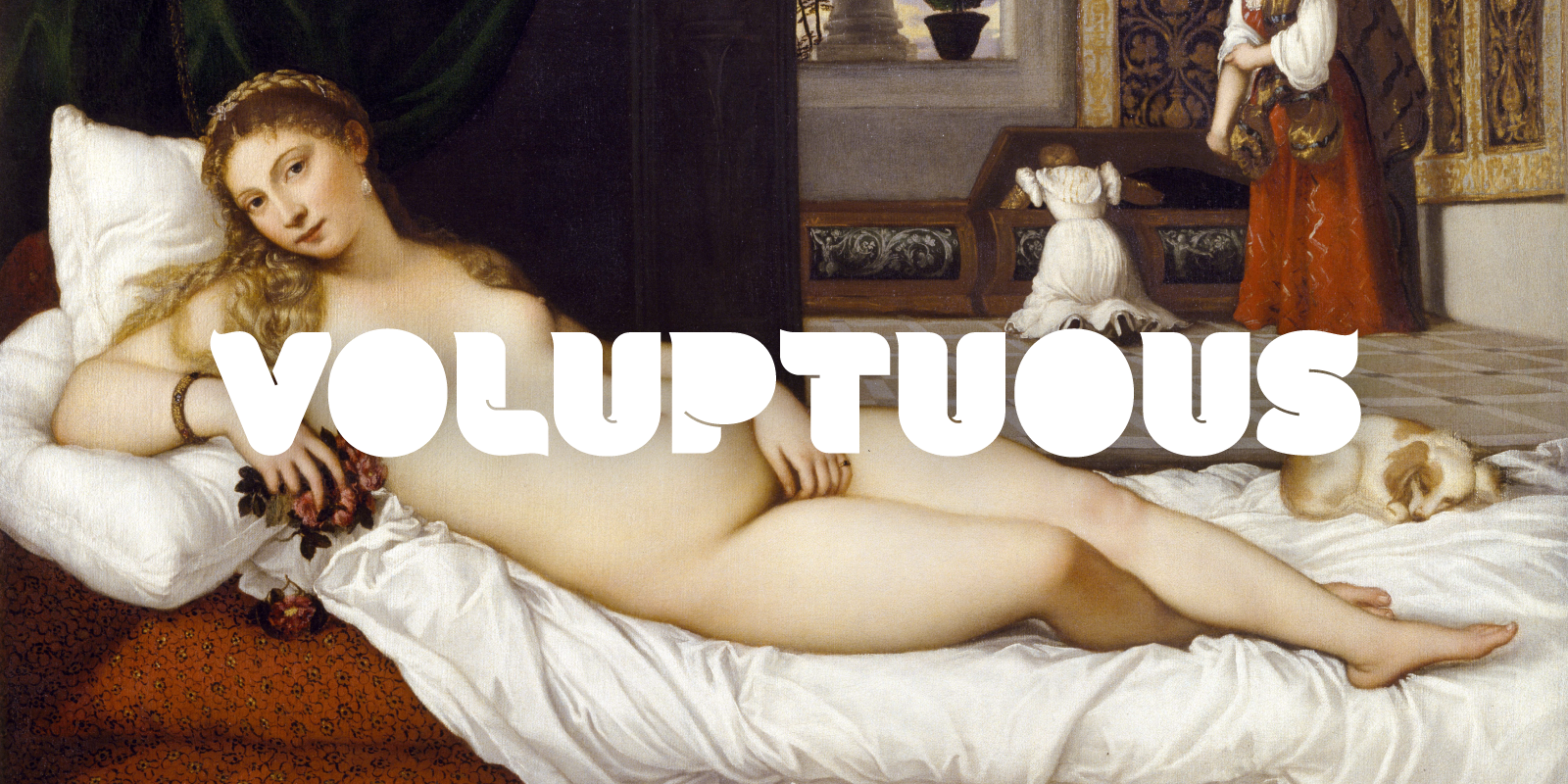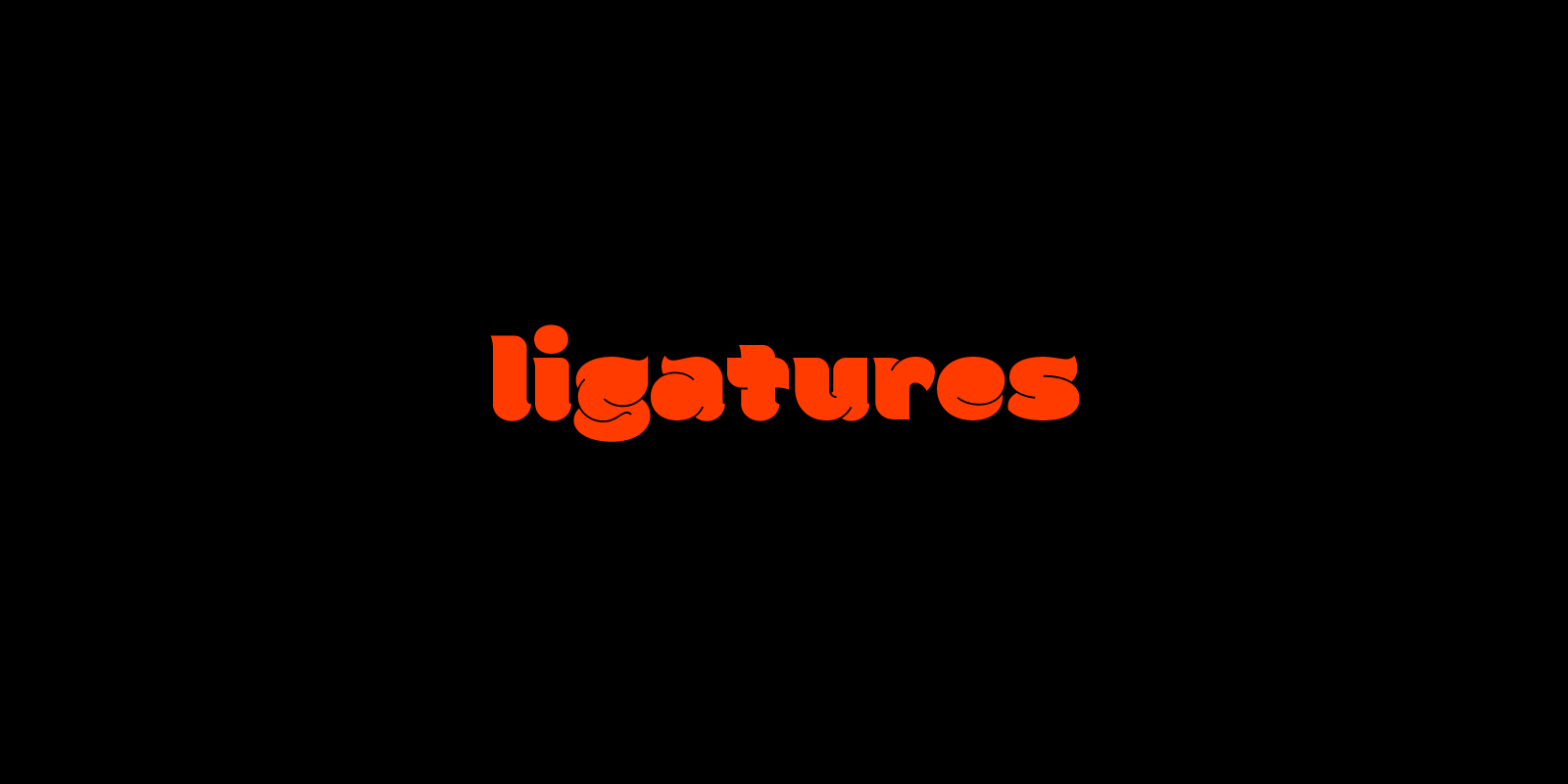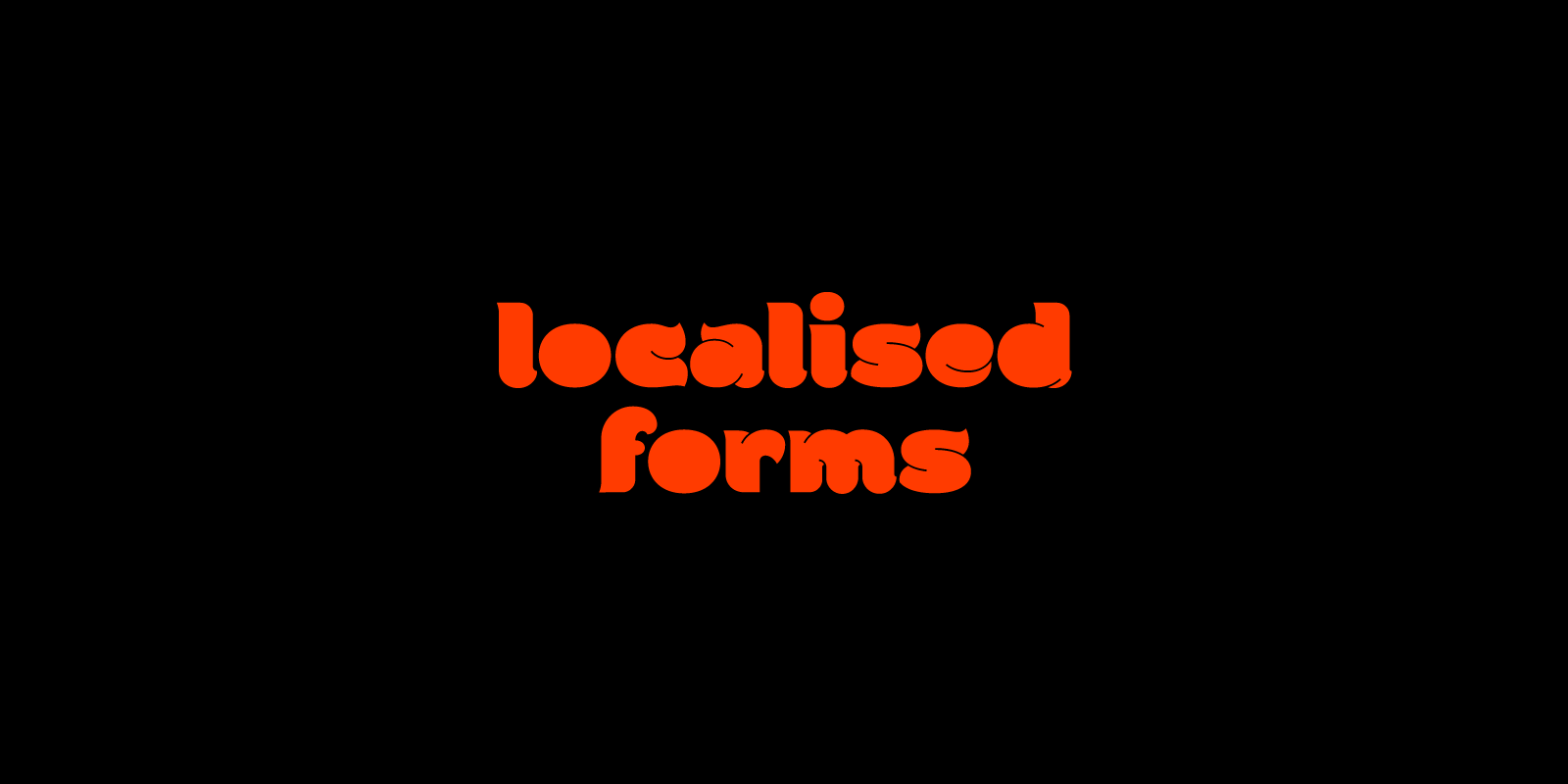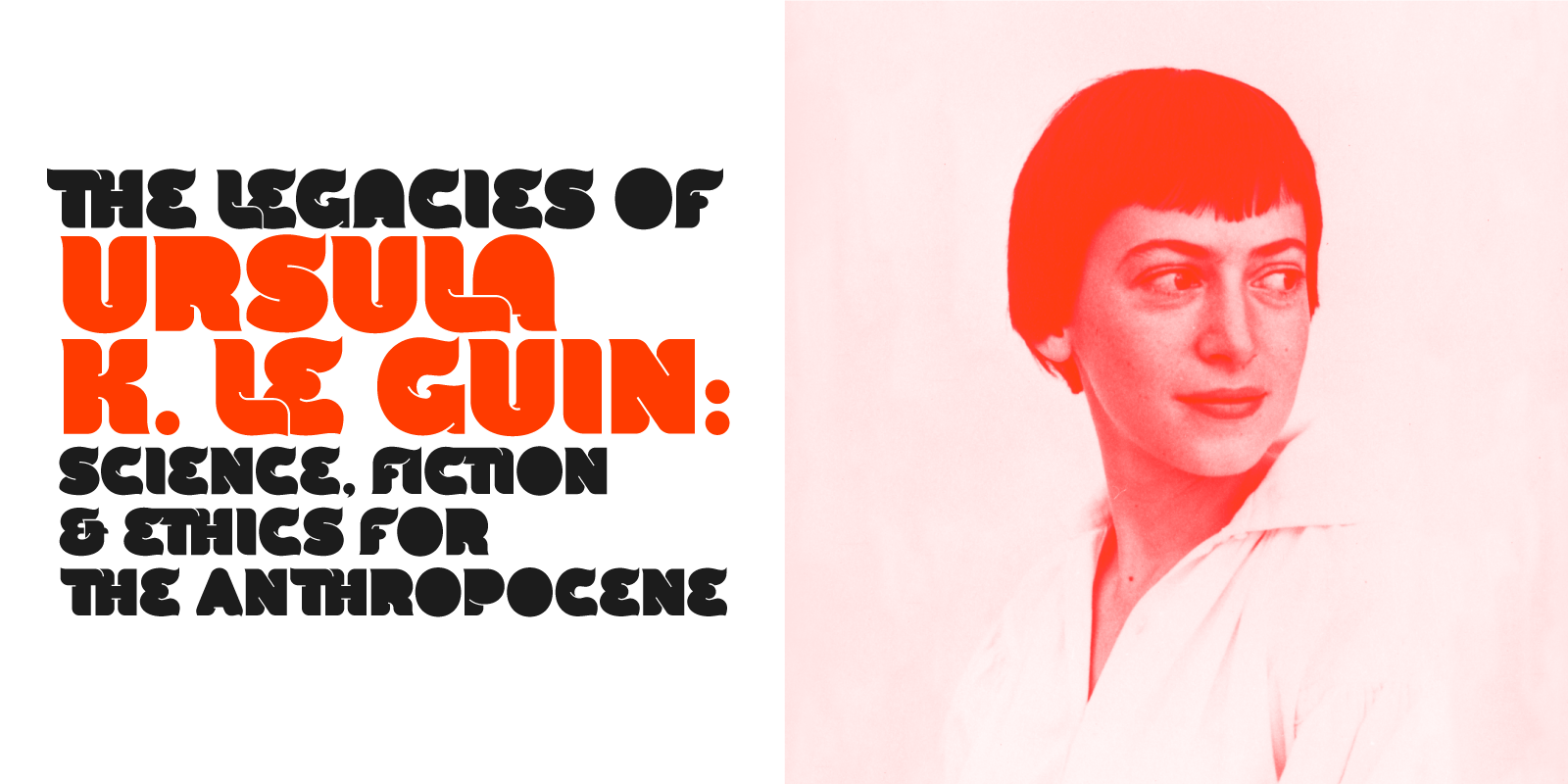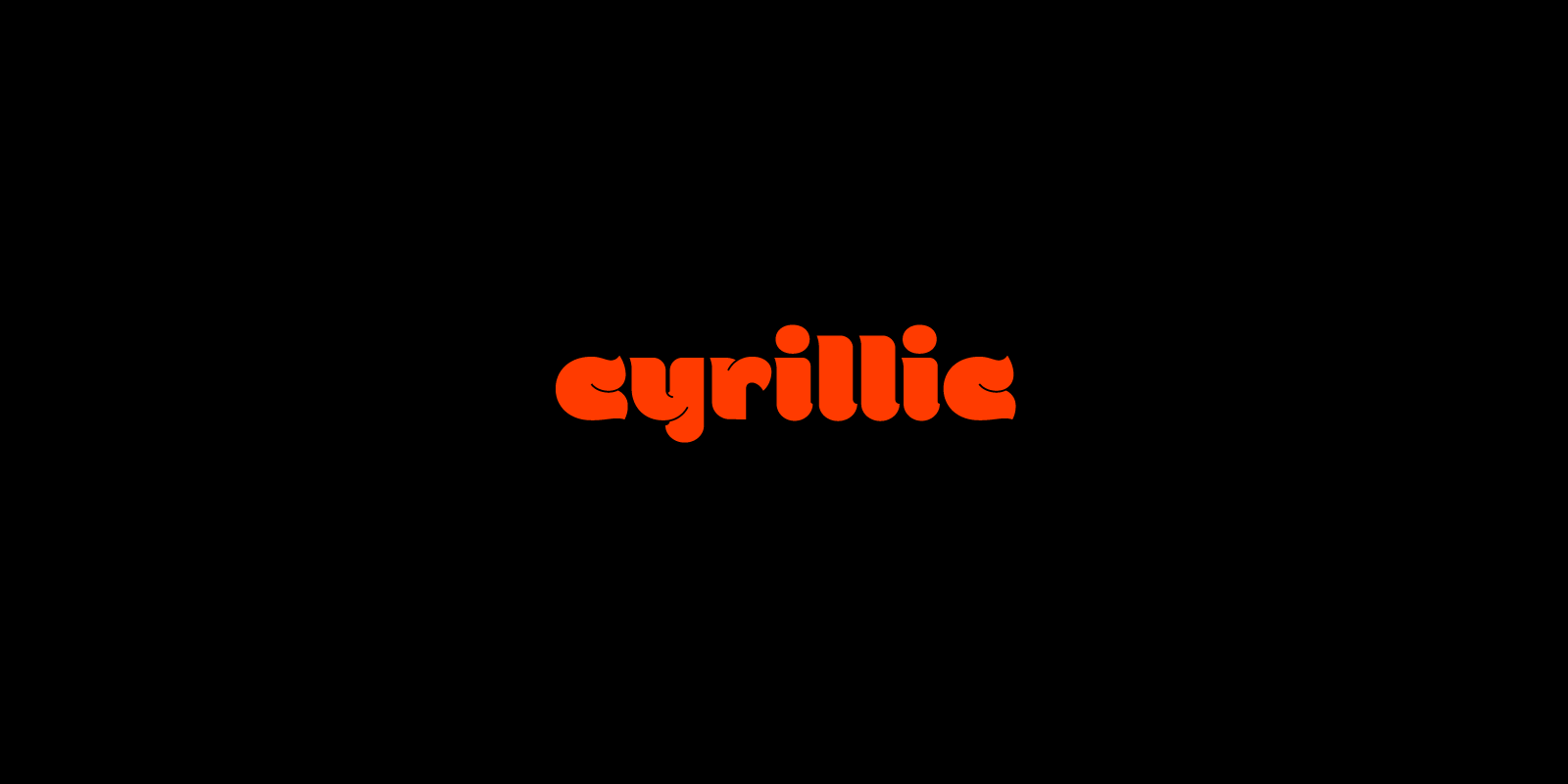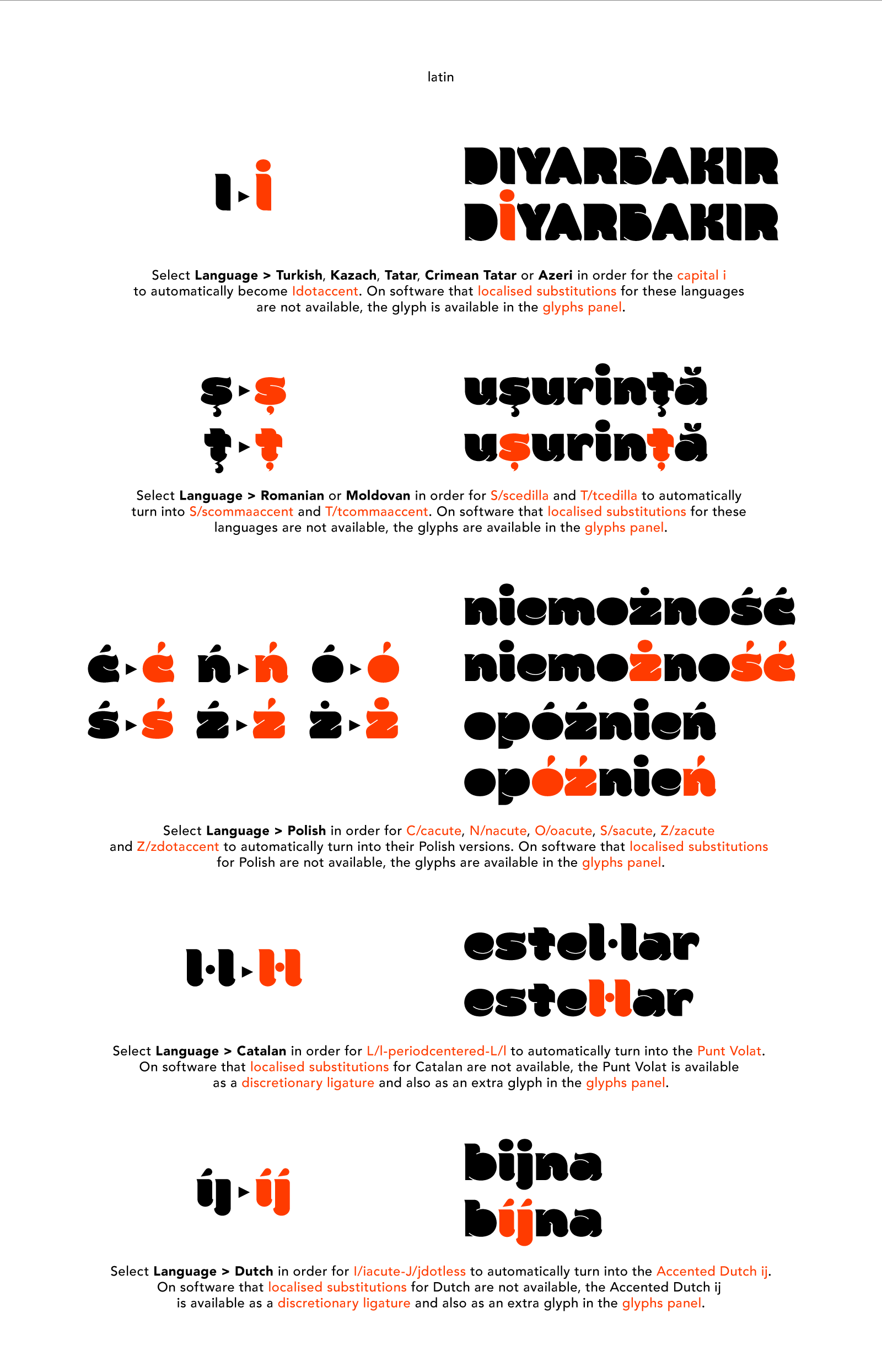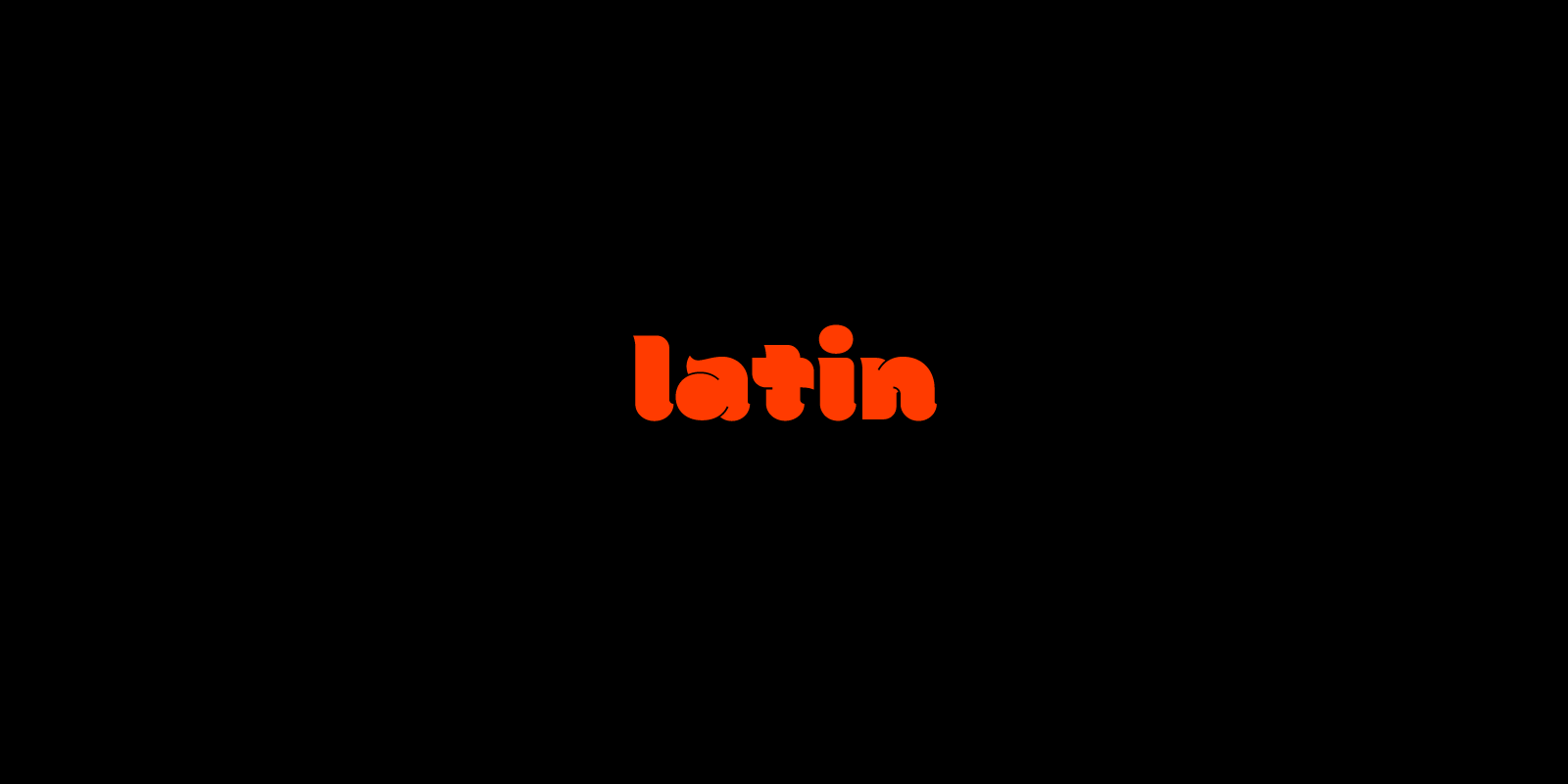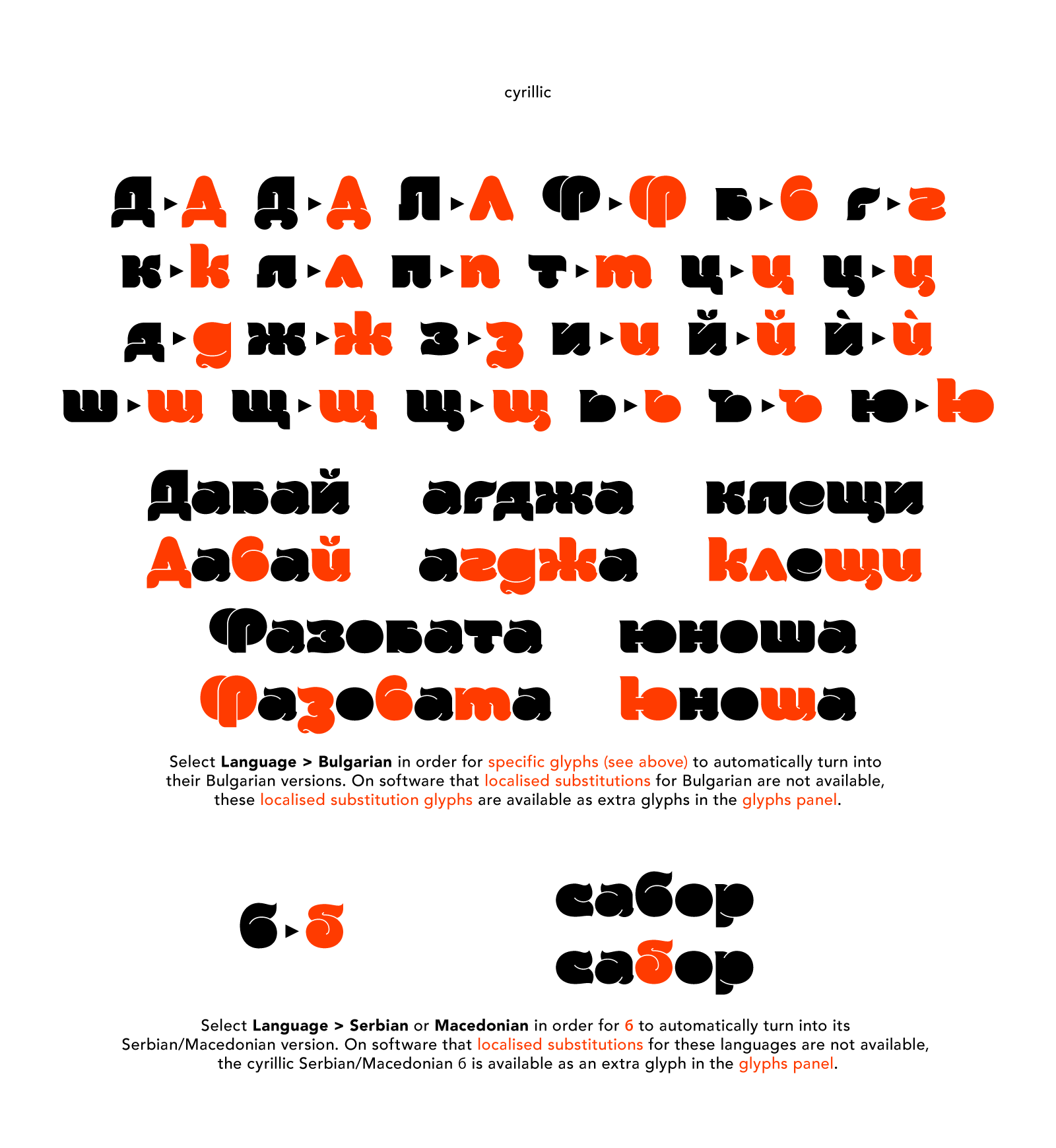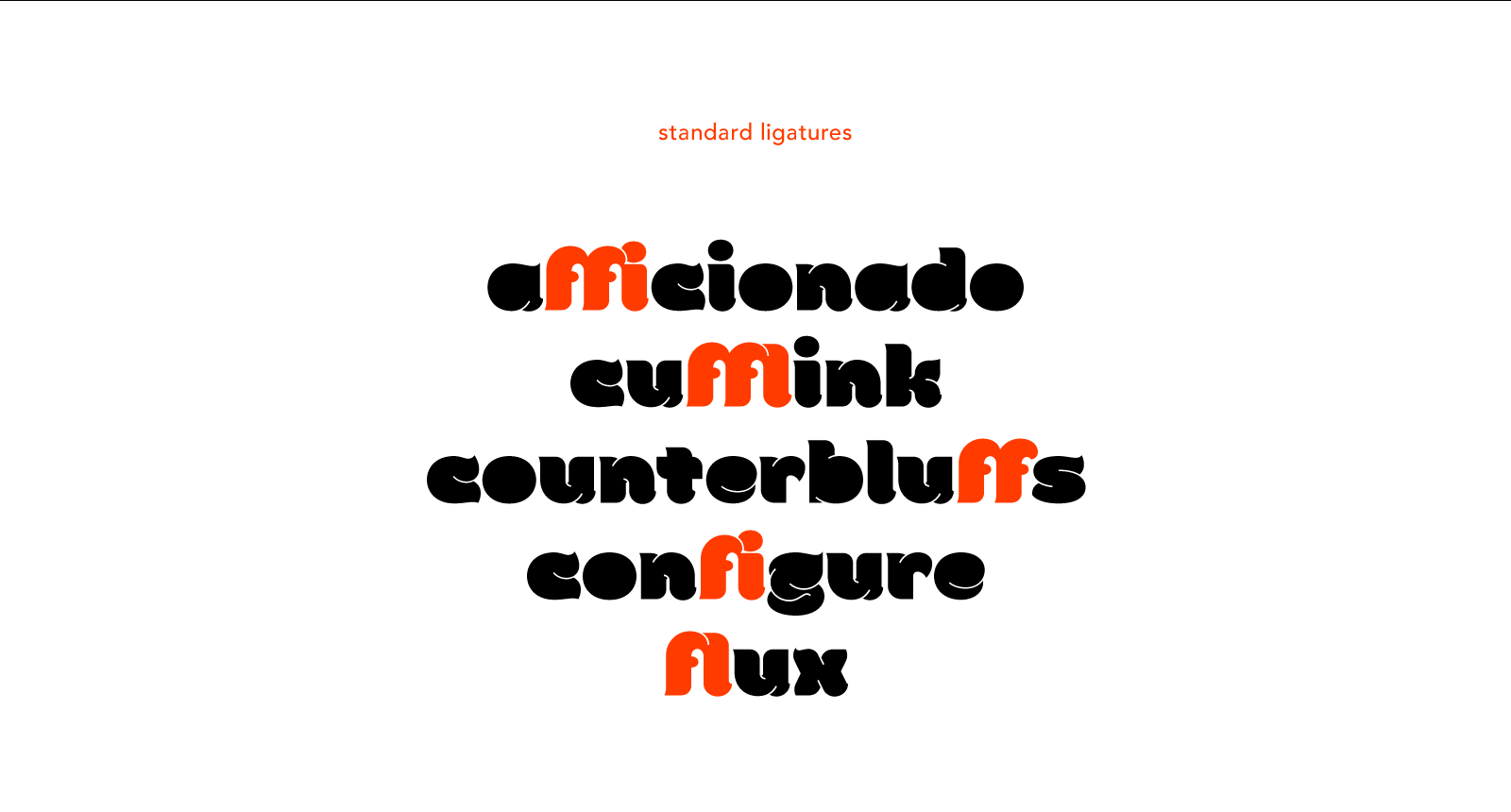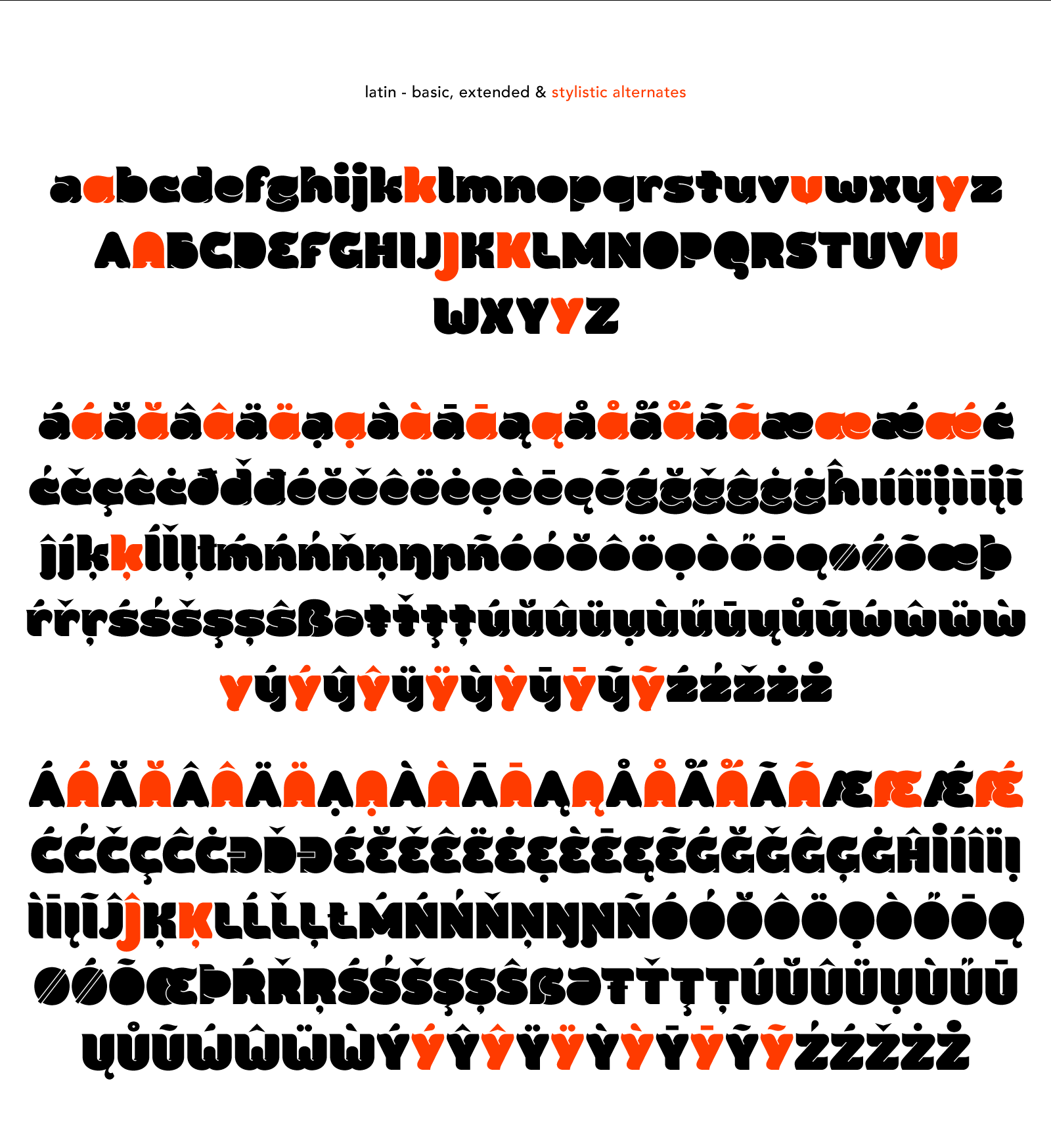
Rubber B is a heavy display typeface with very tight open counters & character spacing and non-existent closed counters. It is an amalgam of styles and influences that demands attention. It is comparable with the highly geometric experimental fonts of the '90s and early '00s, but also heavily inspired by decorative fonts of the '60s and the psychedelic poster art of the '70s. Bold and loud, yet delicate, almost calligraphic in some cases.
It works with Latin & Extended Latin, Cyrillic & Extended Cyrillic and Greek.
It comes with 1,500+ glyphs, with more than half of them being ligatures. It also contains several Stylistic Alternates as well as Localised Forms (available through the Open Type Features and also as ligatures). All these features are available in order to not only make sure that it works with as many languages as possible but also that, depending on the specific glyph or ligature one chooses to use, they have the ability to alter the emotional character of the word(s) they’re setting.
Ideal for titles and logos, as it works best in medium and large sizes.
Rubber B is the evolved version of an older experiment font, Rubber Mono, a project from a few years back which was never completed. It was reworked almost from scratch and severely expanded (Rubber Mono had only Latin capitals) during the long months of the quarantine.